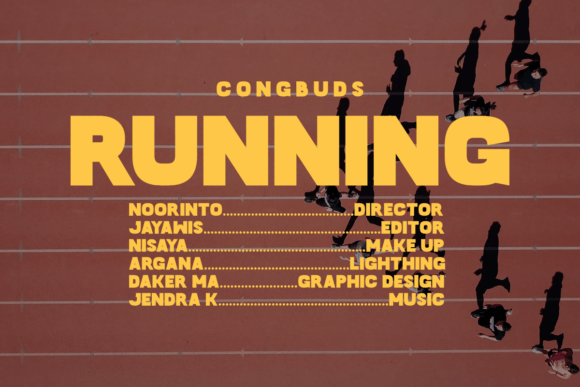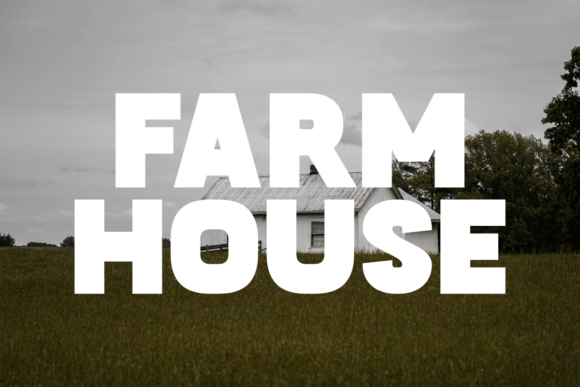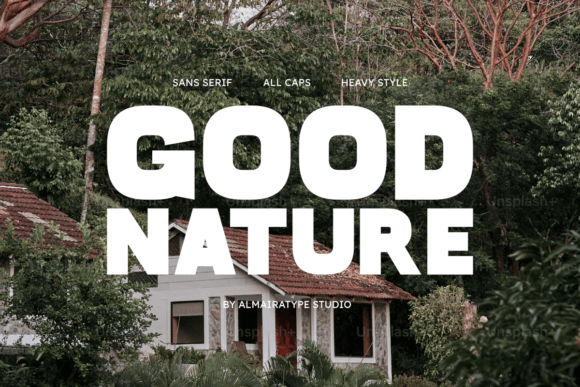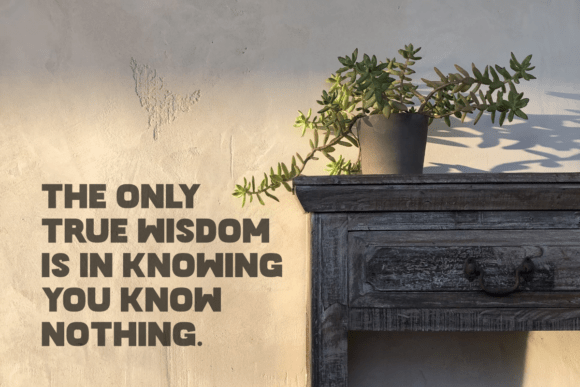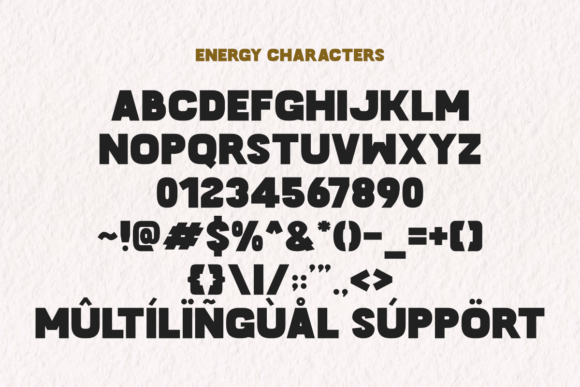
Unleash the Power of Your Designs with Energy Font
In the world of design, typography plays a crucial role in conveying messages, evoking emotions, and creating lasting impressions. When it comes to making a bold statement, few fonts can match the impact of Energy, a heavy all-caps sans serif font designed to command attention and exude strength. In this article, we’ll explore the features, benefits, and applications of Energy Font, and why it’s the perfect choice for designers and crafters looking to add a powerful punch to their work.
The Power of Energy Font
Energy Font is a robust, unwavering typeface that embodies dynamism and stability. Its heavy all-caps sans serif design makes it perfect for delivering a powerful statement, making it ideal for designs that require strength, impact, and a bold presence. Whether you’re working on a striking logo, an impactful event poster, or a compelling branding campaign for activewear, Energy Font ensures your message is not just seen, but felt with an undeniable force and authority.
Key Features of Energy Font
- Heavy All-Caps Design: Energy Font is designed to make a statement with its bold, all-caps letterforms that demand attention.
- Sans Serif Style: The clean, sans serif design of Energy Font ensures that your message is conveyed clearly and concisely, without any distractions.
- Robust and Unwavering: The font’s robust and unwavering letterforms convey a sense of dynamism and stability, perfect for designs that require a strong presence.
Applications of Energy Font
Energy Font is a versatile typeface that can be used in a wide range of design applications, including:
- Striking Logos: Create a lasting impression with a bold, attention-grabbing logo that showcases your brand’s personality and values.
- Impactful Event Posters: Make a statement with event posters that demand attention and create a lasting impression on your audience.
- Dynamic Headlines: Add a powerful punch to your website headlines and make your content stand out from the crowd.
- Compelling Branding for Activewear: Create a strong brand identity for your activewear brand with Energy Font’s bold and dynamic design.
- Powerful Social Media Graphics: Make your social media graphics stand out with Energy Font’s commanding presence and bold design.
Why Choose Energy Font?
So why choose Energy Font for your design projects? Here are just a few reasons:
- Uniqueness: Energy Font’s bold and dynamic design ensures that your work stands out from the crowd and grabs attention.
- Versatility: The font’s versatility makes it suitable for a wide range of design applications, from logos to social media graphics.
- Authority: Energy Font’s commanding presence and bold design convey a sense of authority and confidence, perfect for brands that want to make a strong statement.
In conclusion, Energy Font is a powerful and versatile typeface that’s perfect for designers and crafters looking to add a bold and dynamic touch to their work. With its heavy all-caps sans serif design, robust and unwavering letterforms, and commanding presence, Energy Font ensures that your message is not just seen, but felt with an undeniable force and authority. Whether you’re working on a striking logo, an impactful event poster, or a compelling branding campaign, Energy Font is the perfect choice for designs that require strength, impact, and a bold presence. So why wait? Embrace the power of Energy Font and create designs that truly stand out and resonate with unwavering confidence.